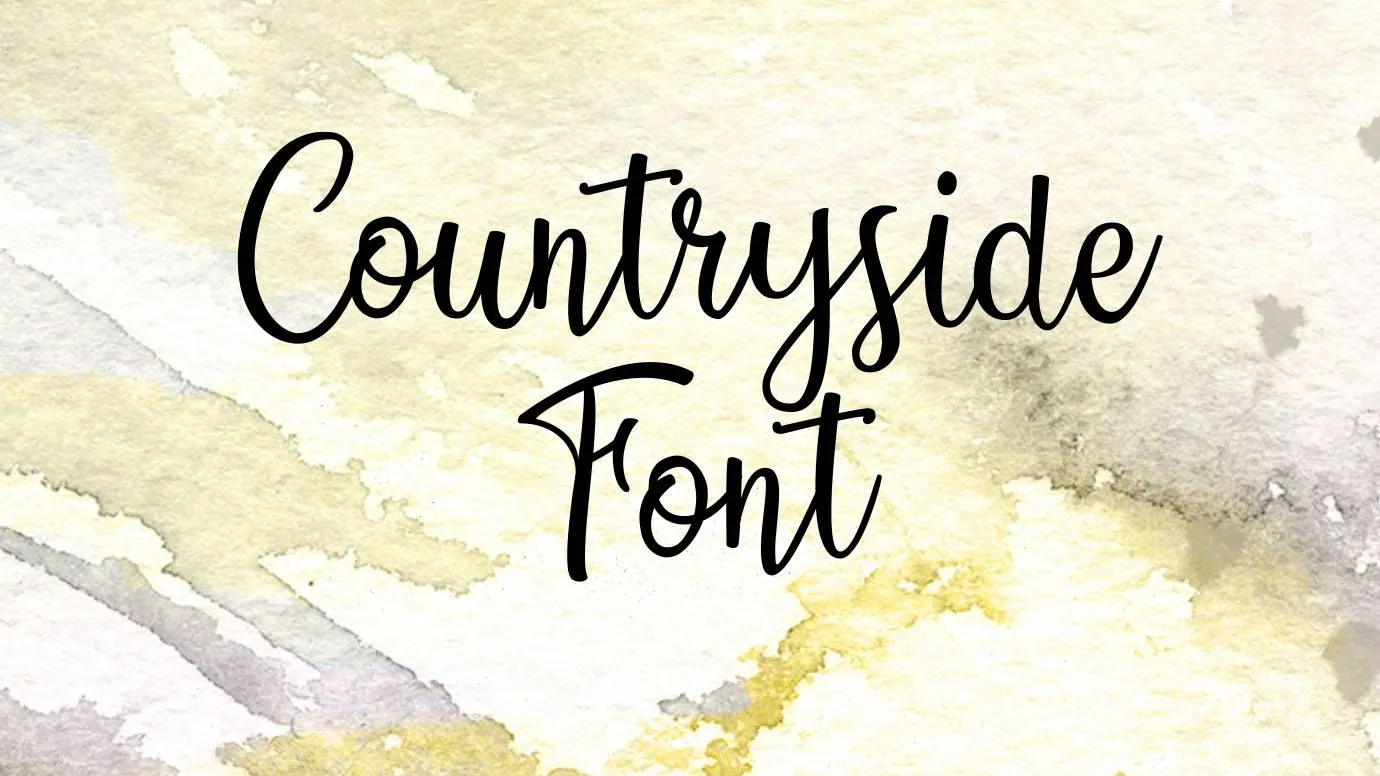
Countryside was designed in 2018 by Bill Argel. This font is simple and is not complicated same as the other calligraphy fonts. This font family comes in two weights including Regular and Two Regular.
It has semi-light weights and basic widths that contain more than 250 interesting characters and 311 high-quality glyphs with massive language support. Tomatoes Font and Halimun font are the most similar fonts to this typeface.
Countryside Font